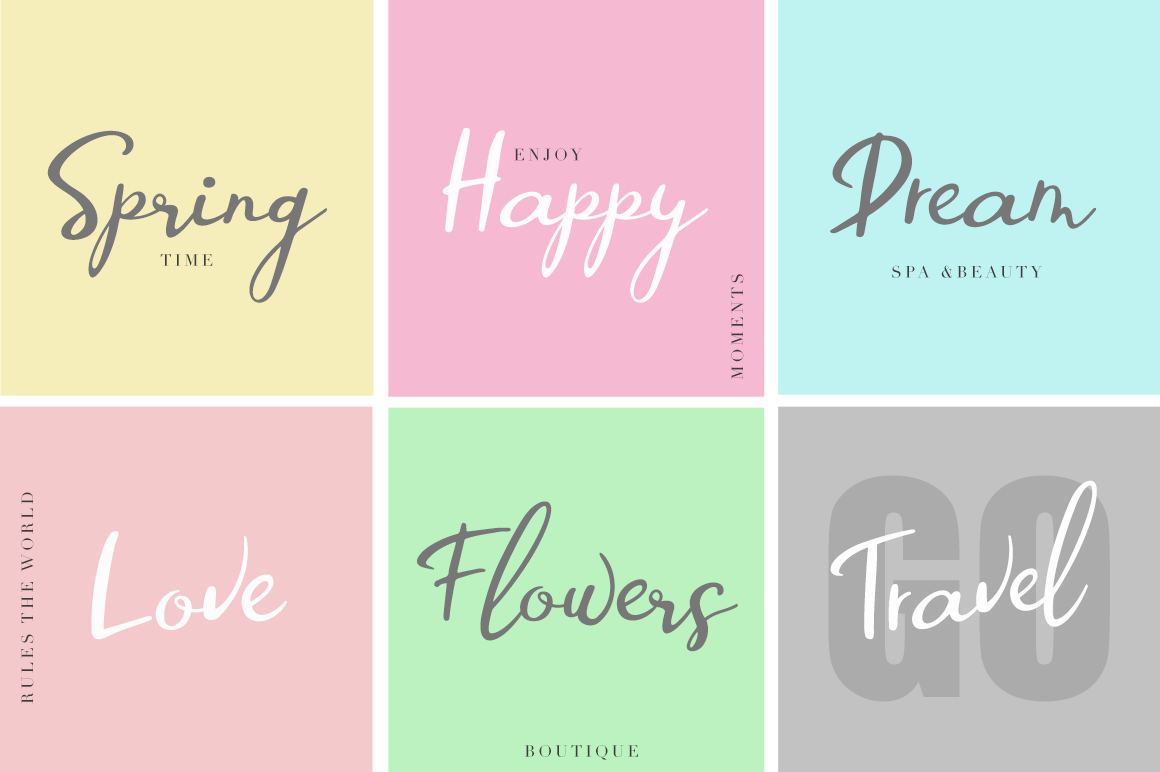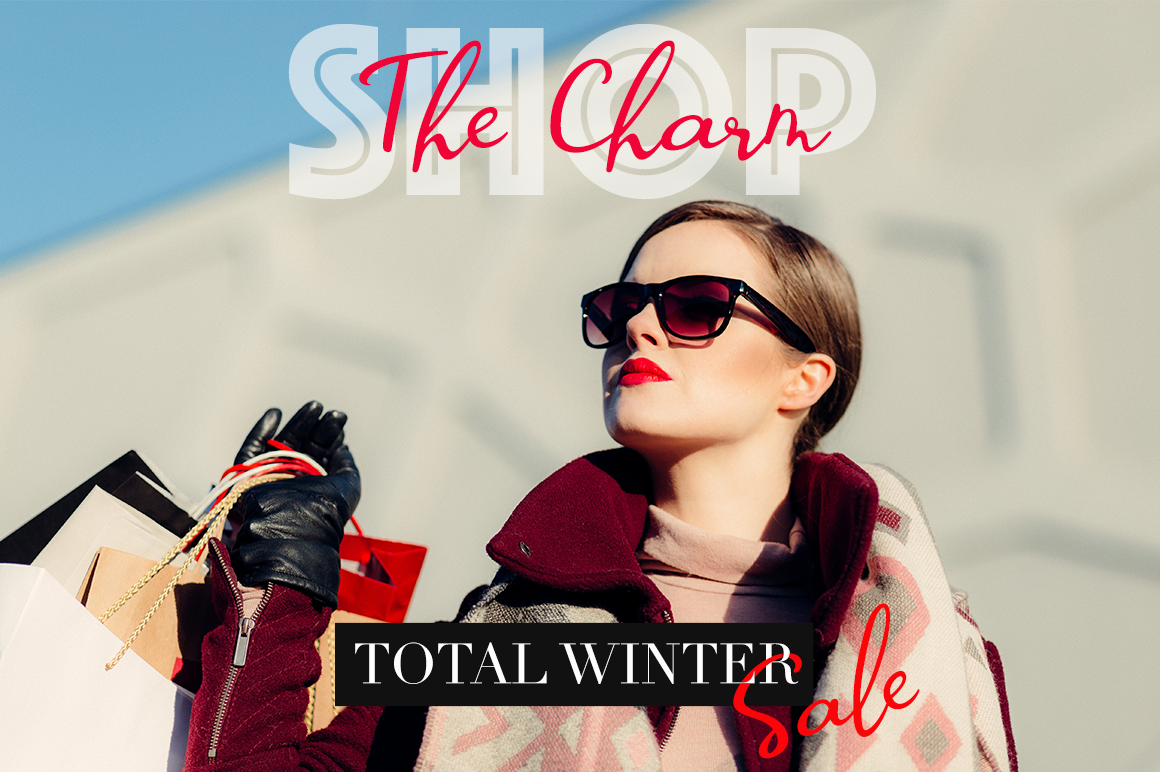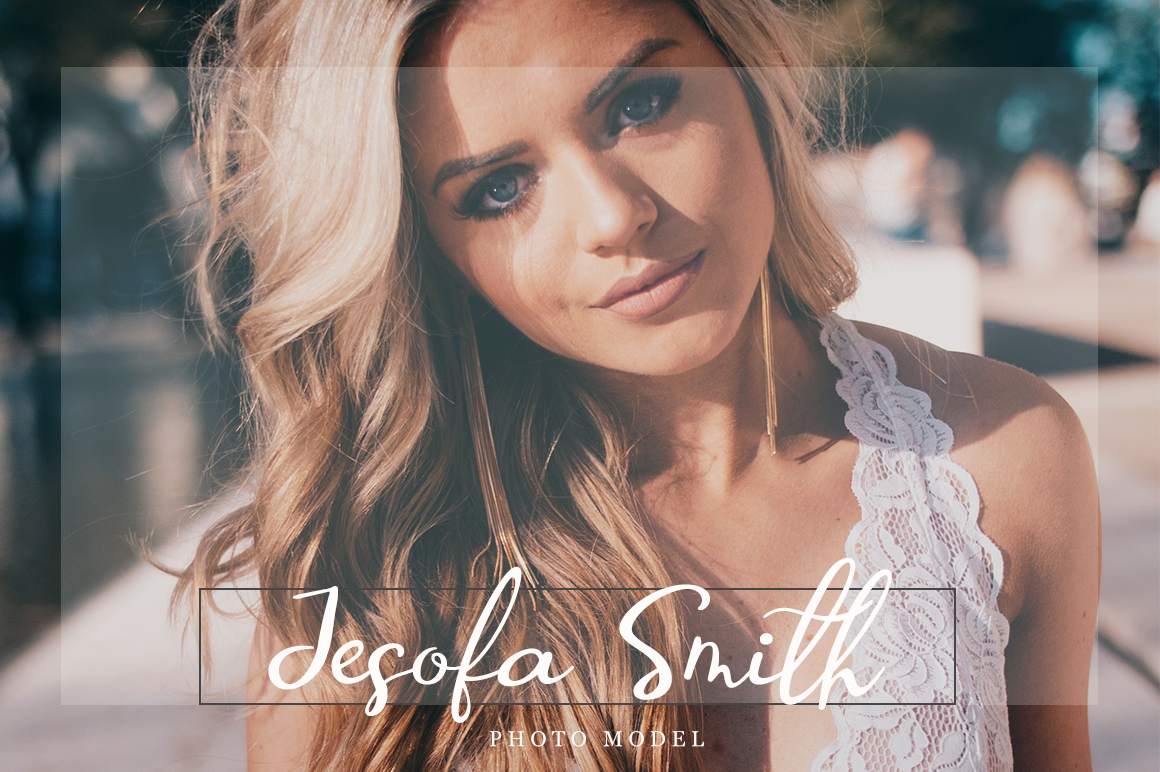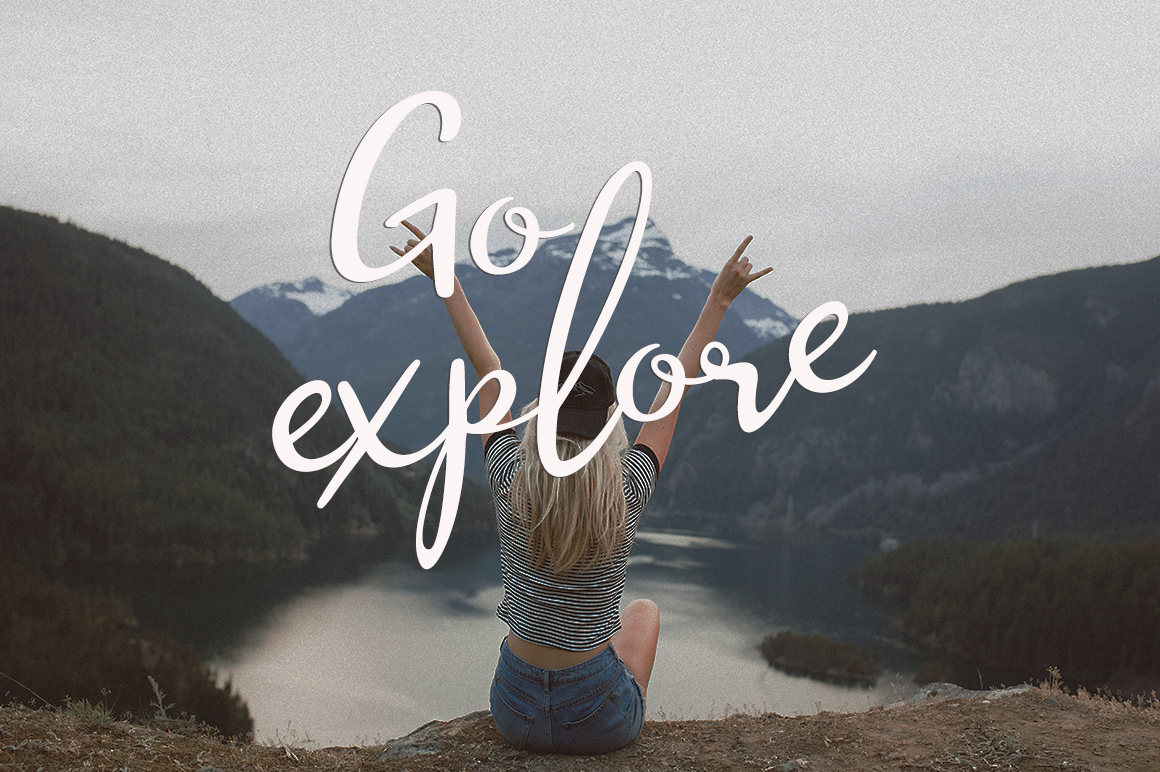
HomeScript FontsRelang Font Script Fonts Relang Font FacebookXPinterestWhatsApp Relang Font Poster 2 Relang Font Poster 3 Relang Font Poster 4 Relang Font Poster 5 Relang Font Poster 6 About Relang Font Relang is a fresh, handmade calligraphy script. It’s ideal for branding and decorating your designs. DOWNLOAD ON CREATIVE FABRICAThis font is sold and delivered by Creative Fabrica. Font Canyon may earn a commission if you buy through this link. People also explored Miss Gendhis Font Anything Font Bunny Daddy Font Mountain Jack Font Finer Diner Uptown Desmond Beautiful Heart Font Elephantmen Variable Rachela Font 331 0 TagsRelang Font Previous articleMenulist FontNext articleSwansea Font LEAVE A REPLY Cancel reply Comment: Please enter your comment! Name:* Please enter your name here Email:* You have entered an incorrect email address! Please enter your email address here Website: Save my name, email, and website in this browser for the next time I comment. Personal Use Free Sweety Blue Personal Use Free Read more about this font Hearted Personal Use Free Read more about this font Letter Hanger Personal Use Free Read more about this font Diland Personal Use Free Read more about this font BLOG Top 10 Handwritten Fonts That Elevate Your Designs Top 10 Handwritten Fonts That Will Elevate Your Designs Handwritten fonts bring a warm, personal touch to every creative project. Whether you're designing logos, invitations,... Where to Buy American Fonts Online in 2024 Transform Your Website: Elevate Your Typography with 7 Best Web Font Generators Modern Sans-Serif Fonts That Brands Love in 2025